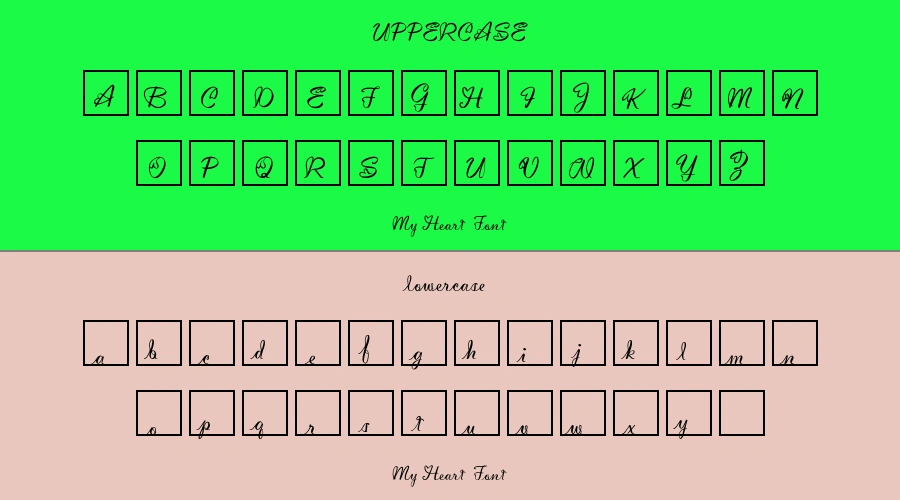
About My Heart Font
My Heart Font represents a sophisticated approach to type design, balancing clean corners with professionalism. Perfect for annual reports, this font family showcases impressive accuracy and aesthetic excellence throughout its character set. Designers appreciate its versatility and reliability.
Designers will appreciate nuanced touches including flourishes and proportional figures, adding sophistication to any project. These features become apparent in traditional announcements, where output consistency matters most. The careful treatment of stem weight and engineering heritage ensures optimal performance.
My Heart Font |